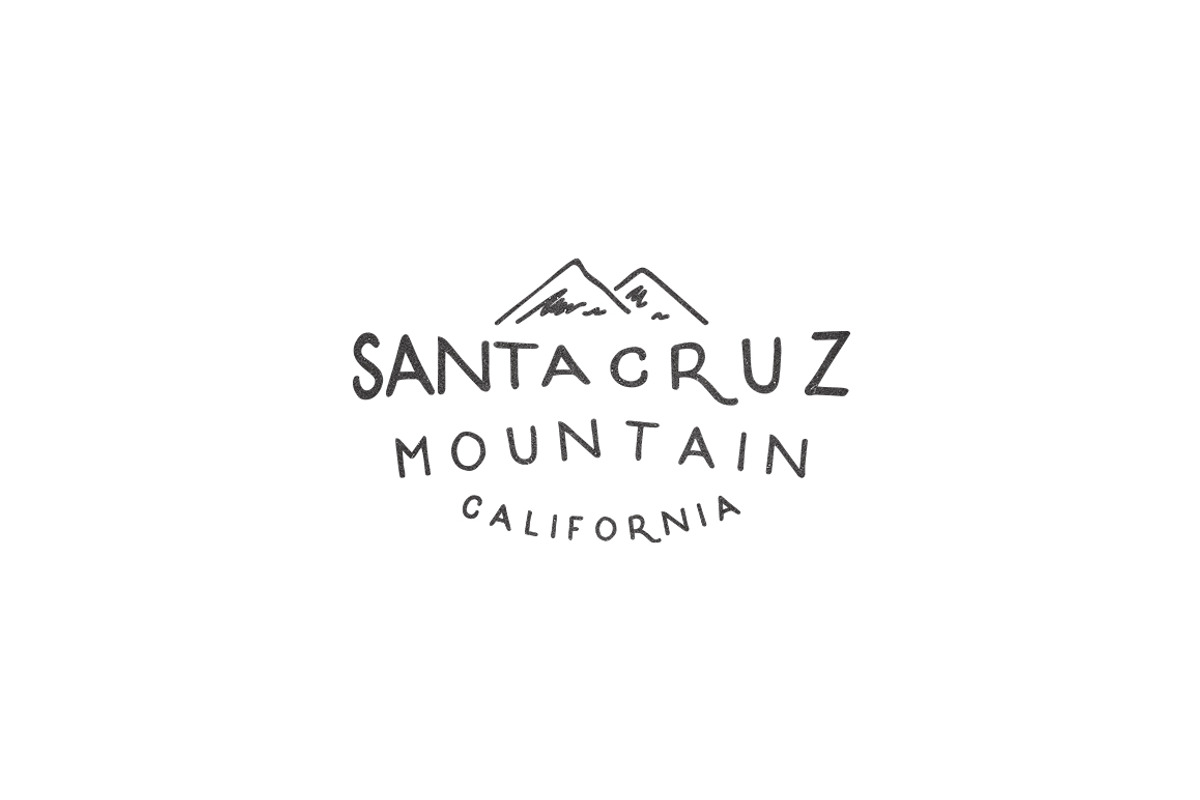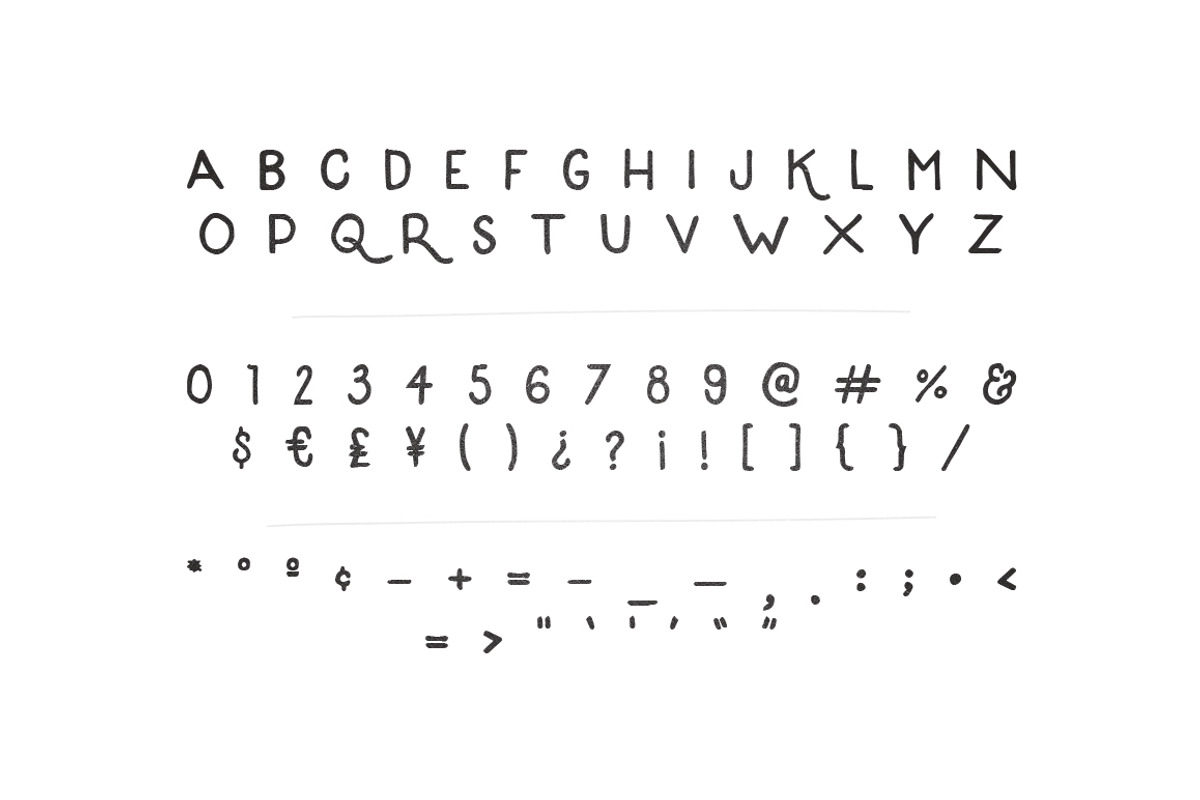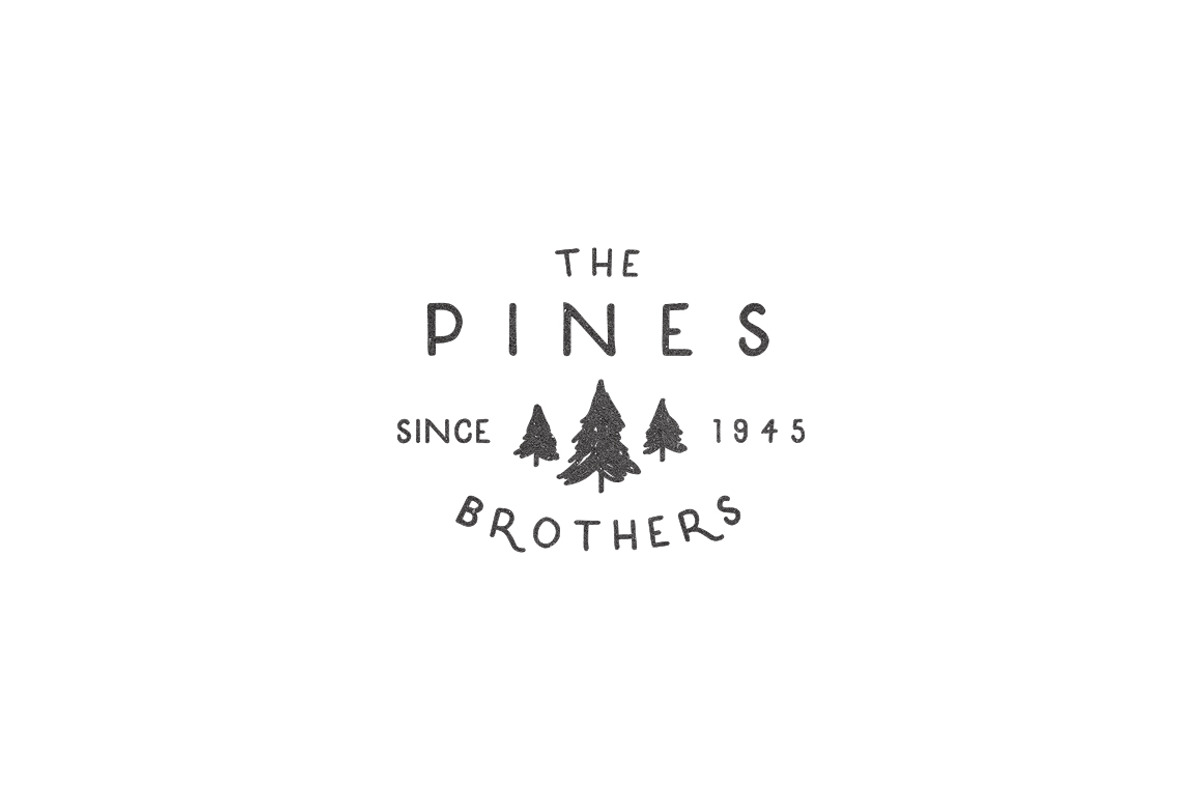
Tomahawk — Vintage Font
Tomahawk — Vintage Font by Noe Araujo is a font selected for branding, posters, packaging, typography.
Why Tomahawk — Vintage Font is worth a look
Tomahawk — Vintage Font by Noe Araujo fits naturally into Branding, posters, packaging, typography.